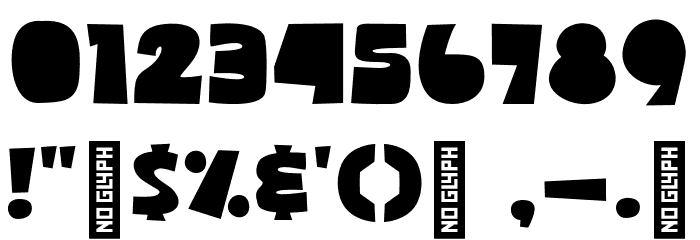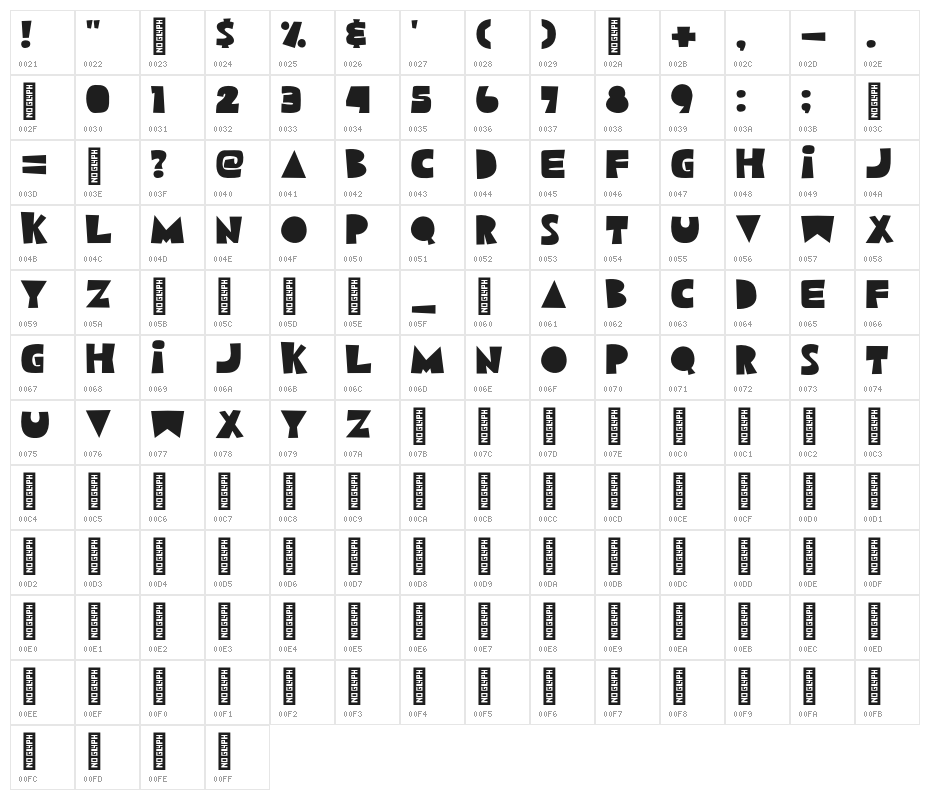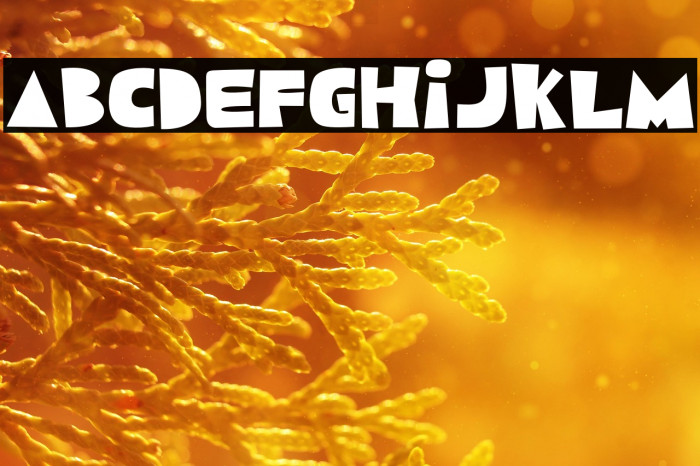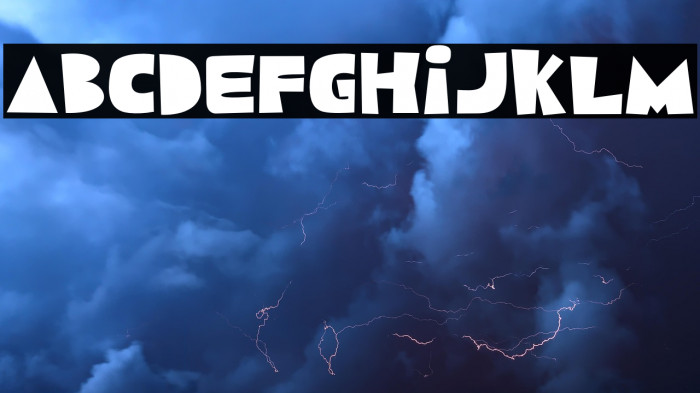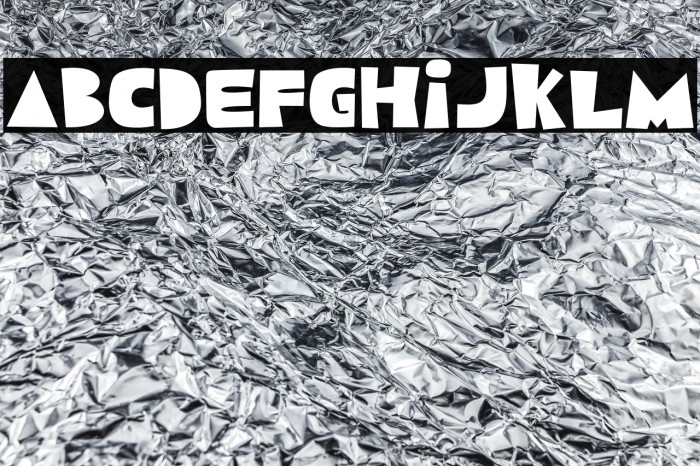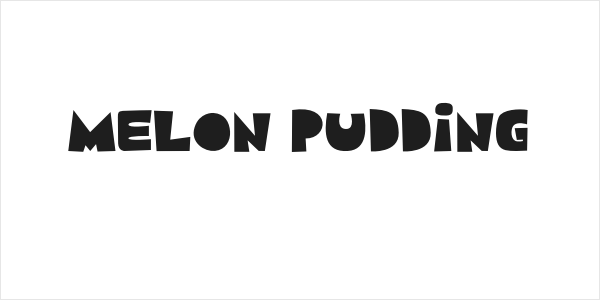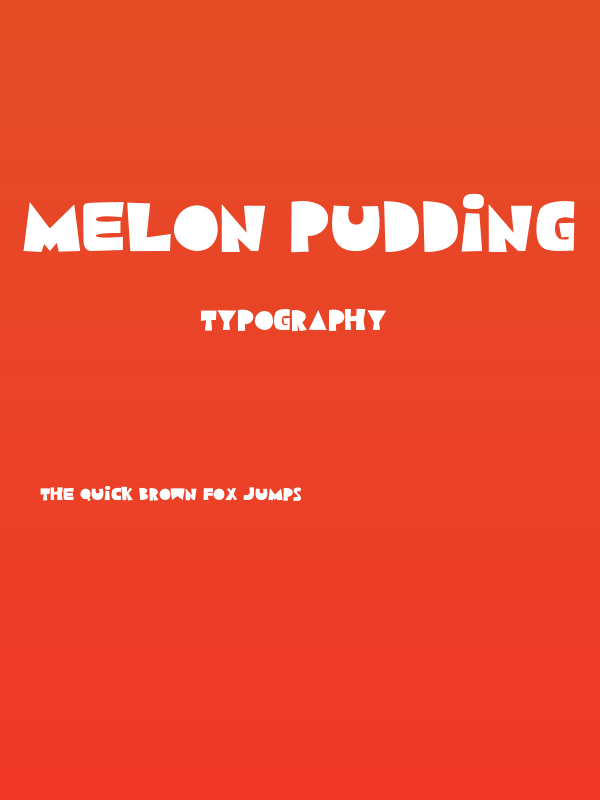
Melon Pudding Font
Melon Pudding Description
This playful and bold font features a unique and quirky design with exaggerated geometric shapes. The characters are crafted with a mix of sharp angles and rounded edges, creating a dynamic and eye-catching appearance. The uppercase letters are particularly striking, with some characters resembling abstract forms. The numbers and special characters maintain the same whimsical style, making them suitable for creative and informal projects. The font's distinct personality makes it ideal for attention-grabbing headlines and designs that require a fun and lively touch.
Proposed ProjectsIdeal for children's books, playful branding, posters, and creative advertising.